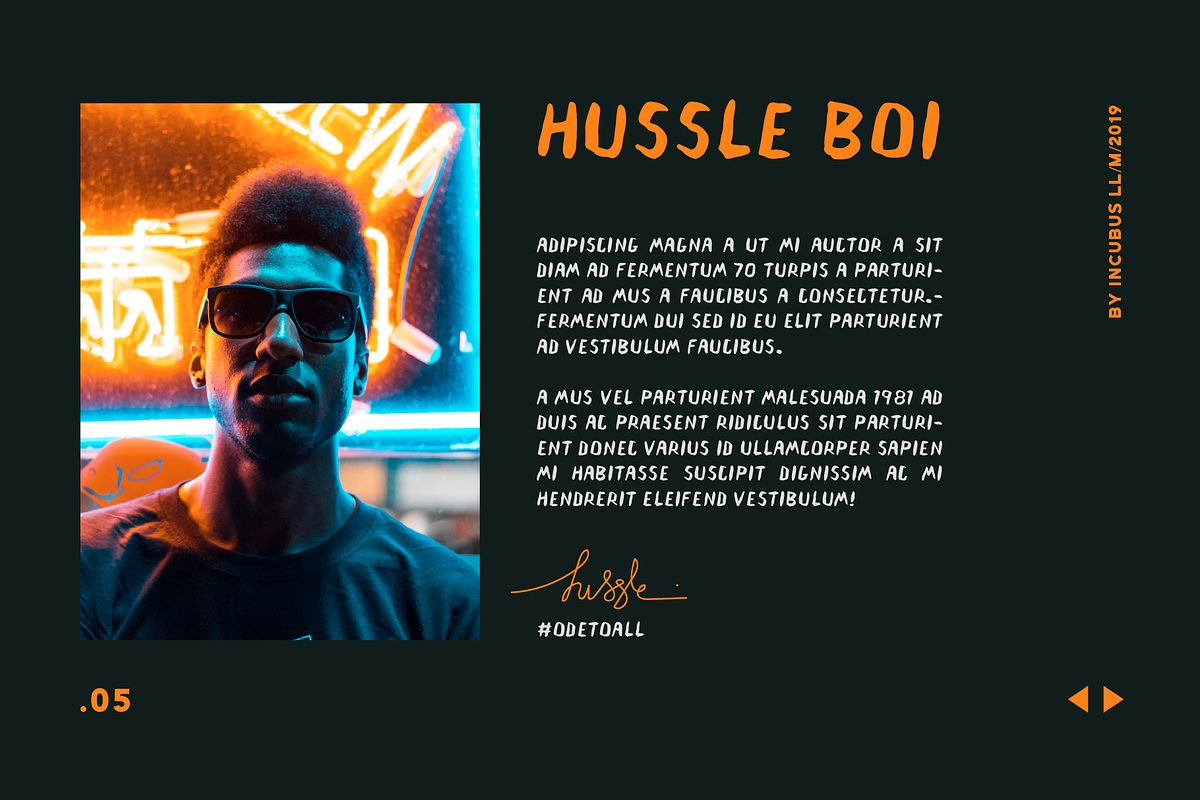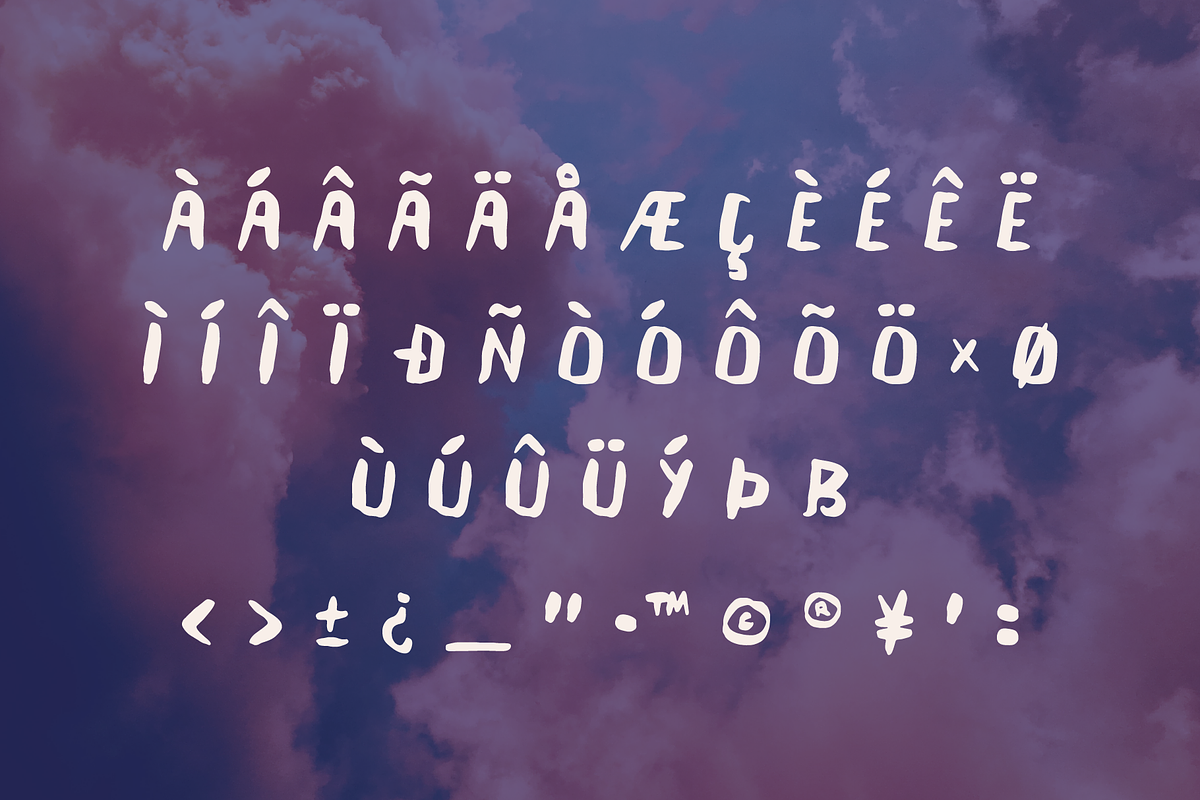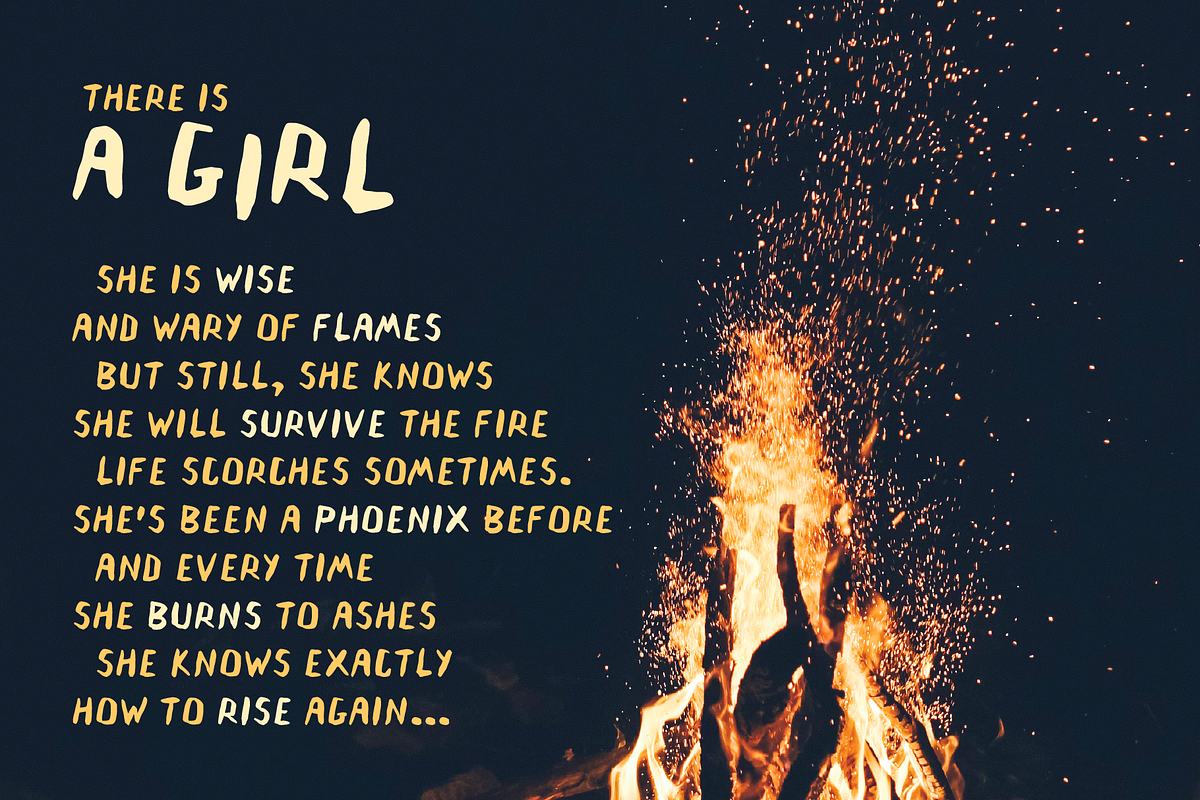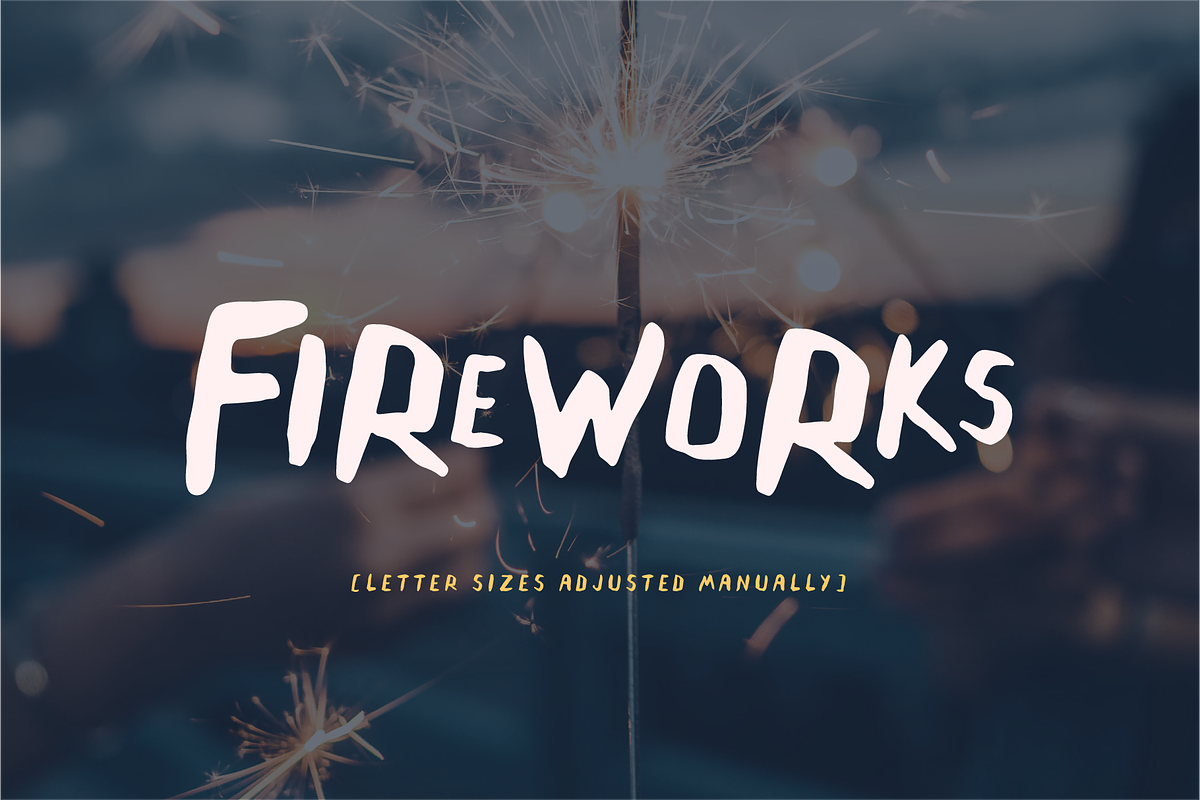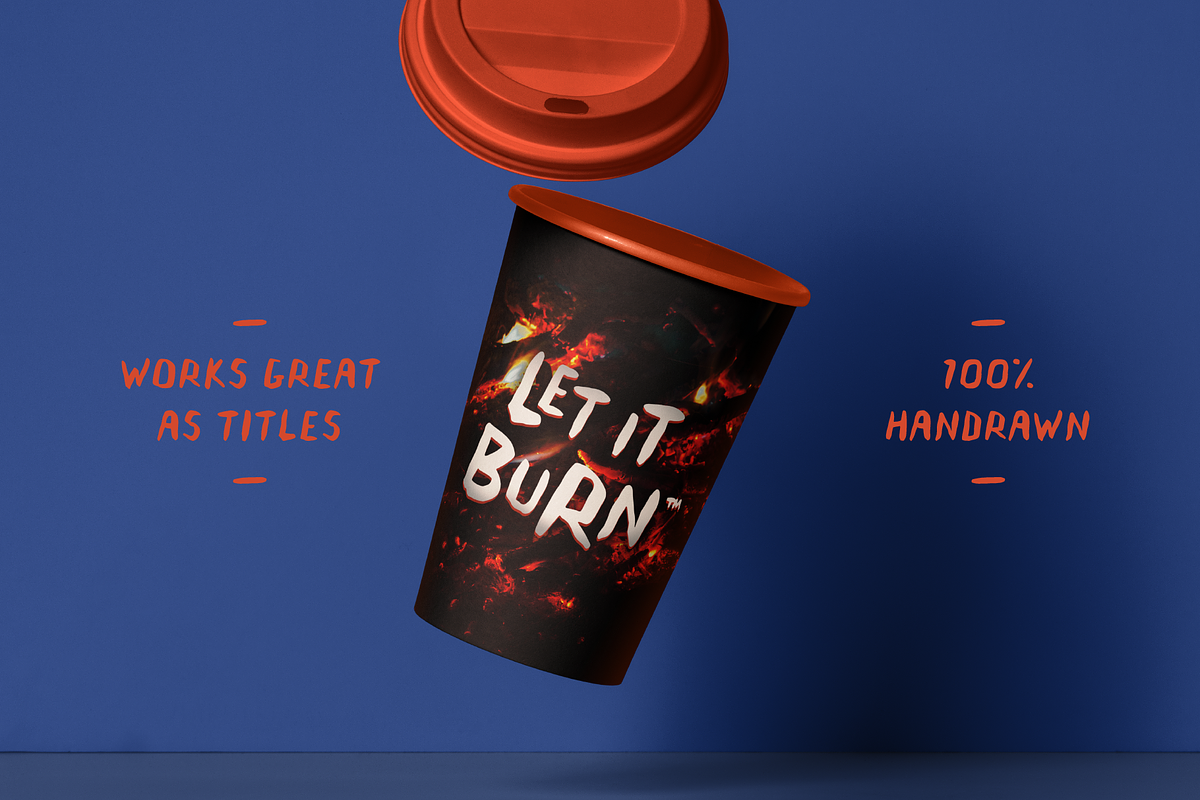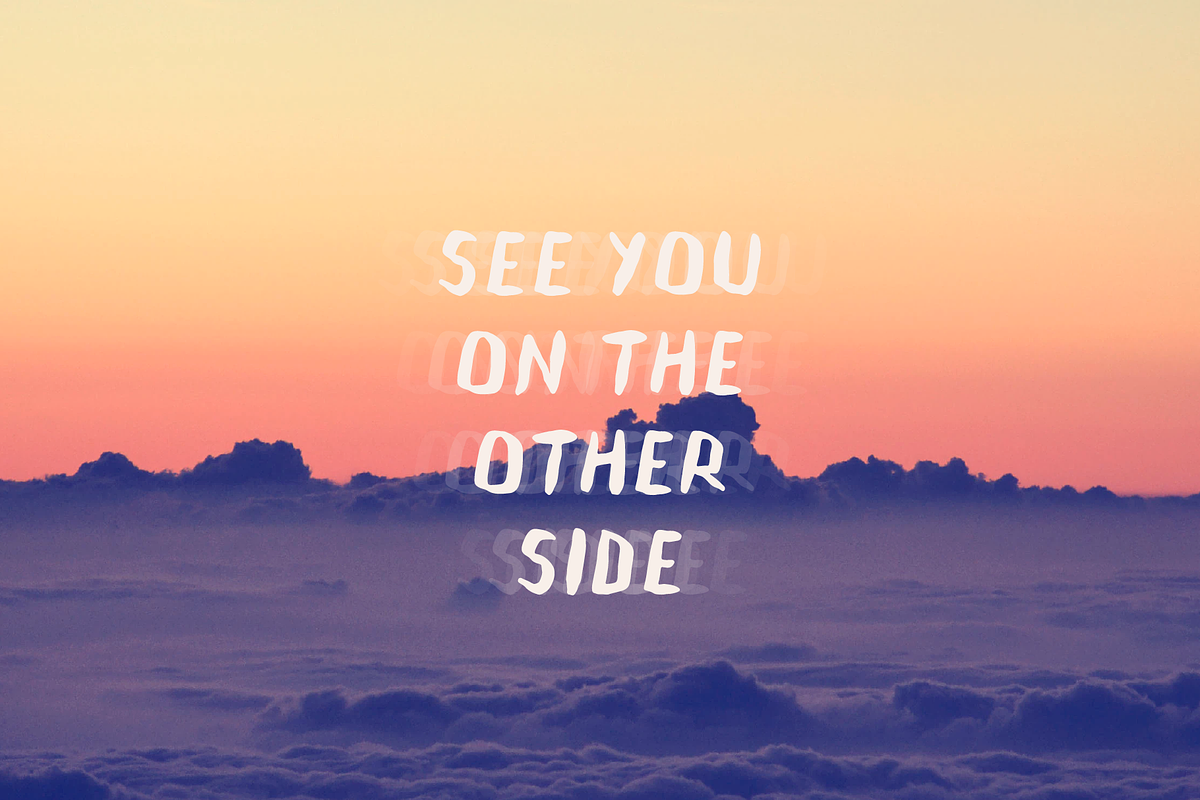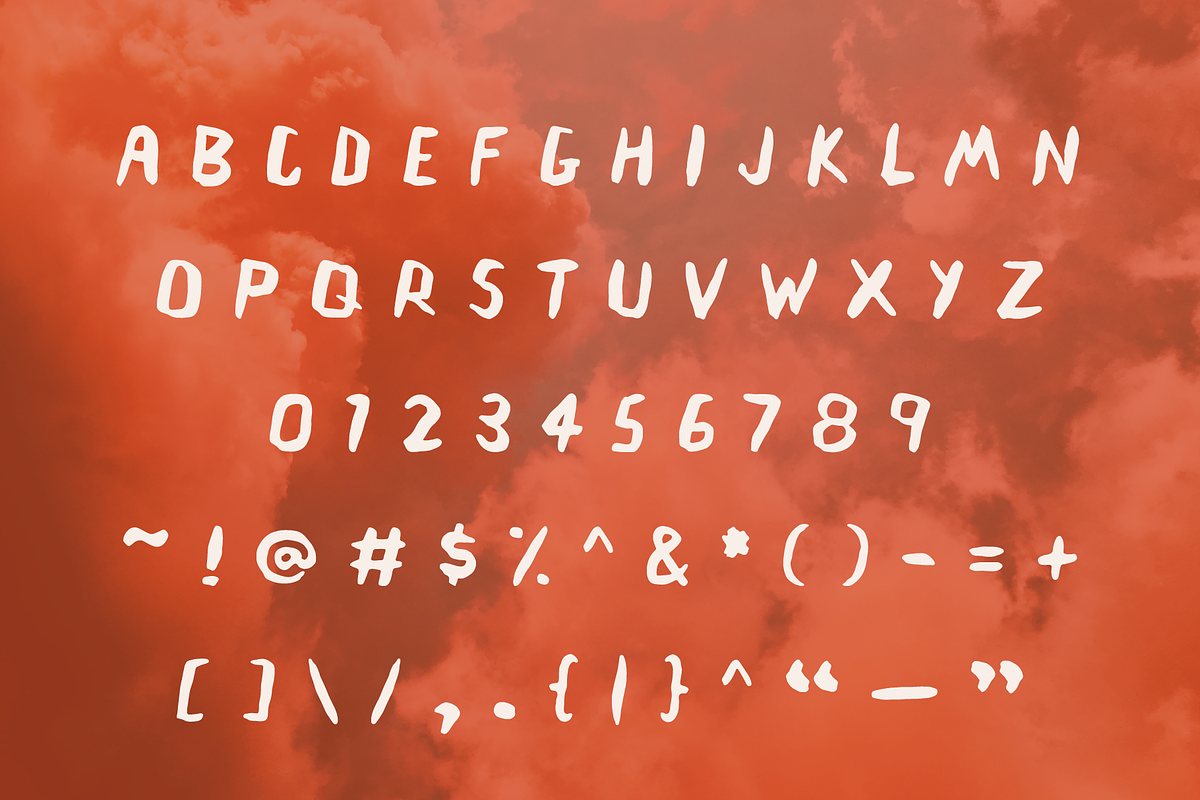
Blaza Display Font
Heat's up! Blaza is a warm display font inspired by heat and light refraction that caused by it. Or melting metal, or ice, or anything.
Blaza is available in uppercase (all-caps) only, but it is designed to be suitable for paragraphs and longer text too. Click the example above for a bigger picture.